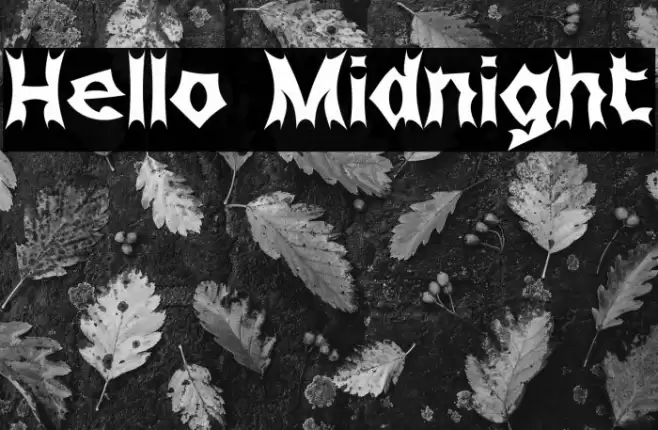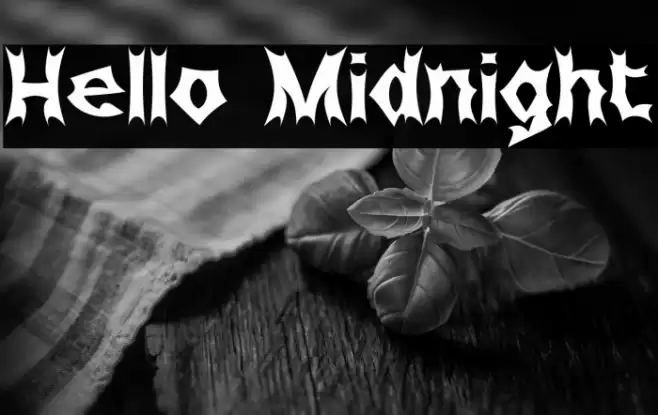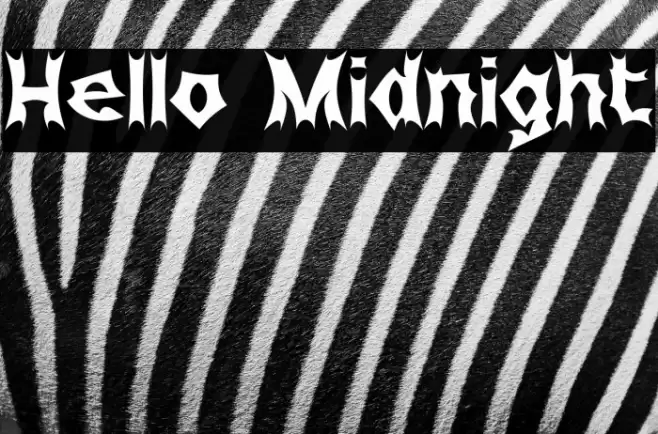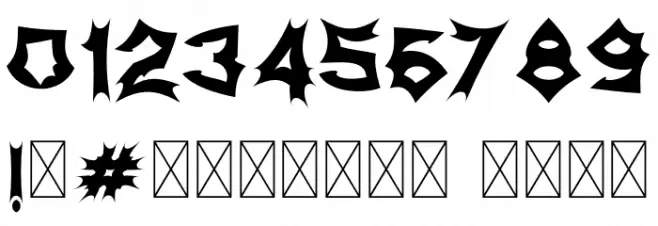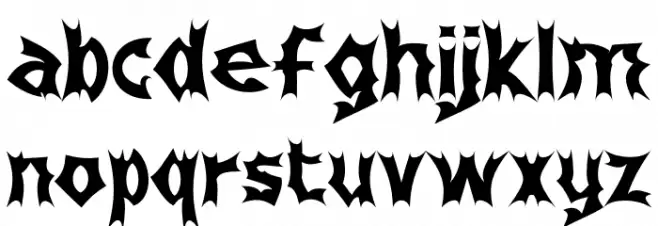
Hello Midnight Font
Hello Midnight Description
This font features a bold, jagged design with sharp, angular edges that evoke a sense of intensity and drama. The characters are heavily stylized, with each letter exhibiting unique spikes and curves that create a dynamic and aggressive appearance. The uppercase and lowercase letters maintain a consistent style, while the numbers and special characters follow the same edgy aesthetic. This font is ideal for projects that require a strong visual impact and a touch of rebellious flair.
A bold, jagged font with sharp, angular edges and a dramatic, intense style from Uncategorized fonts.
- Proposed Projects: Ideal for band logos, event posters, video game titles, and any project needing a bold, edgy look.
- Contrast: High
- Use Case: Logos, Headlines